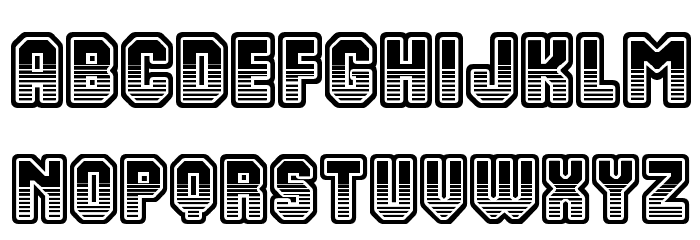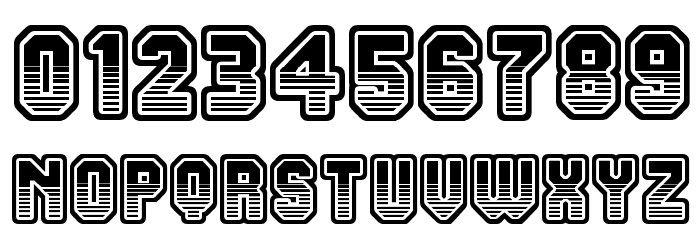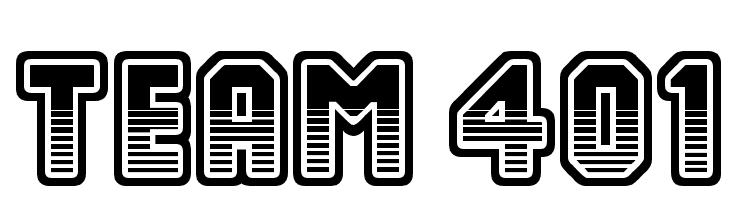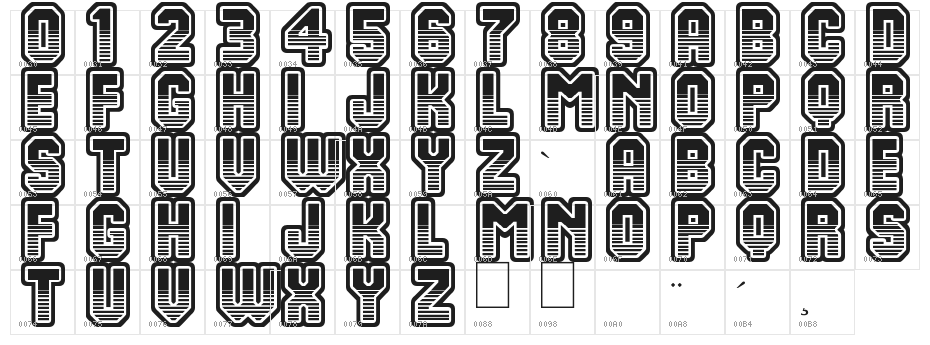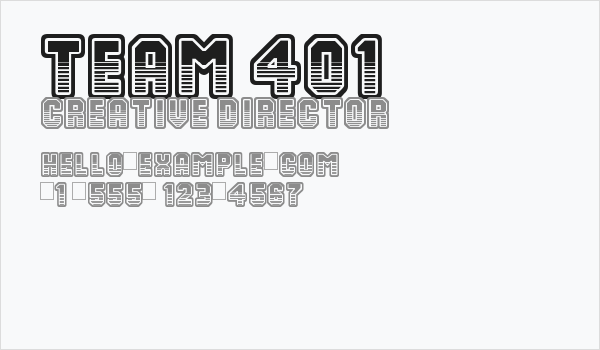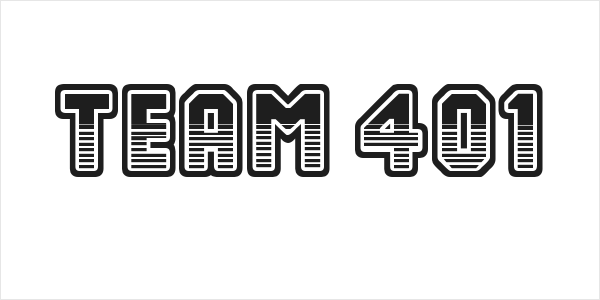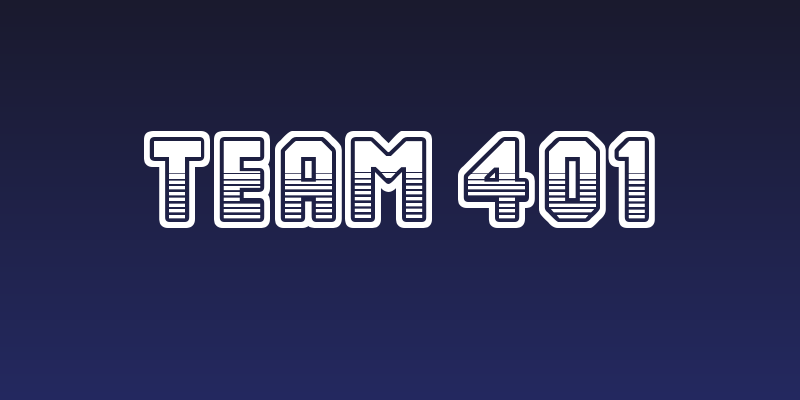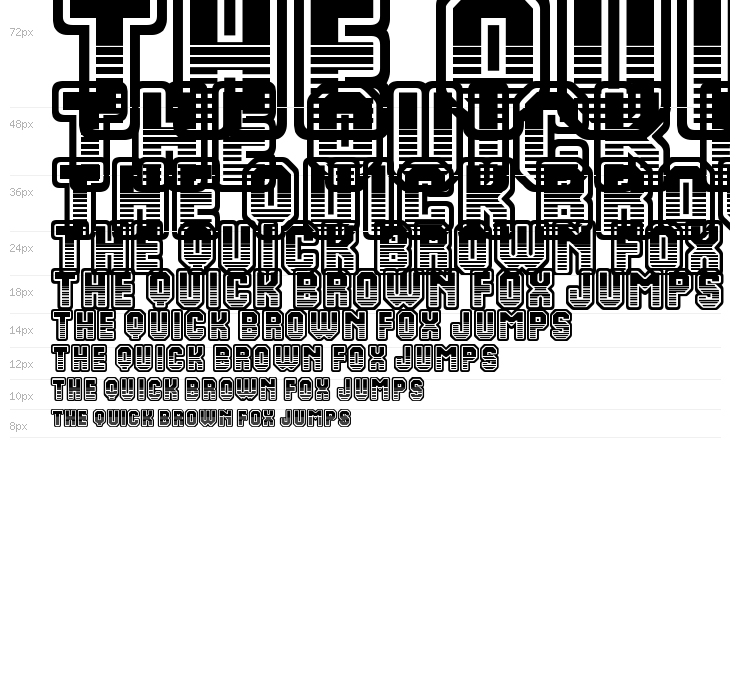
Team 401 Font
This font features a bold, decorative style with a distinct layered effect that gives each character a three-dimensional appearance. The letters are outlined with a thick border, and the interior is filled with horizontal lines that create a striped pattern. This design adds depth and visual interest, making it stand out in any application. The uppercase letters are uniform in height, while the numbers share the same stylistic elements, ensuring consistency across all characters. The font's unique aesthetic is both modern and retro, making it versatile for various creative projects.
A bold, decorative font with a layered, three-dimensional striped design.
- Proposed Projects: Ideal for posters, logos, headlines, and any project requiring a striking visual impact.
- Overall Style: Modern, Retro